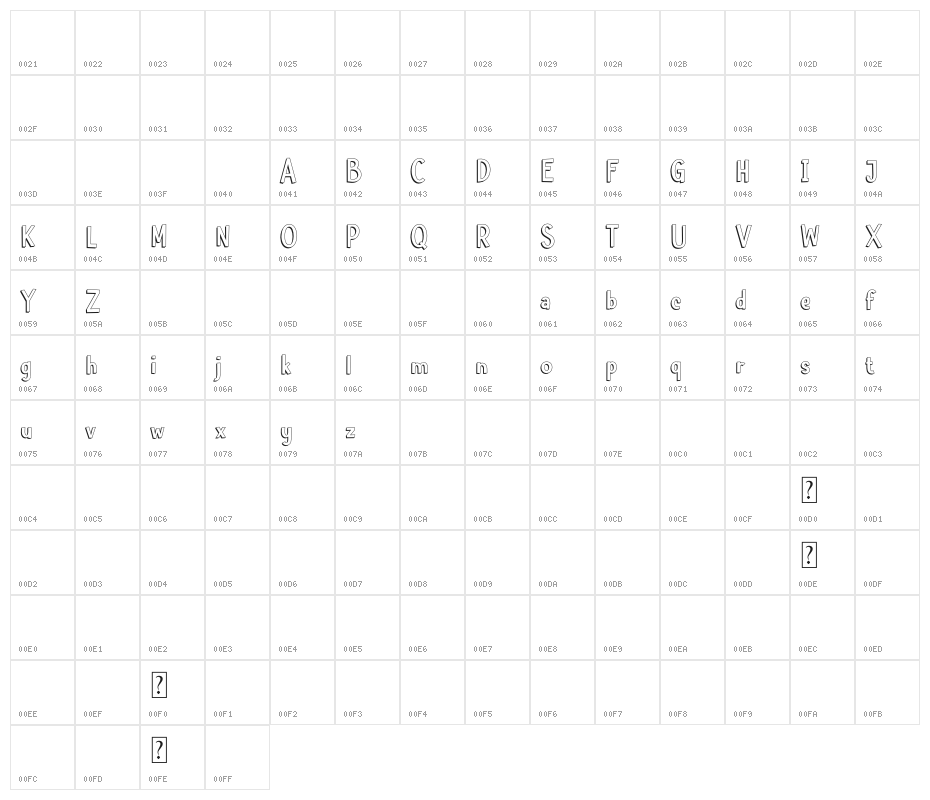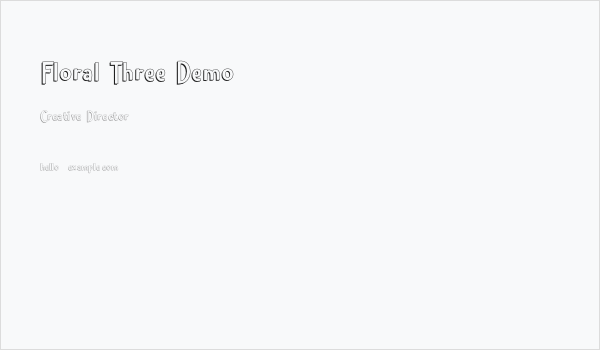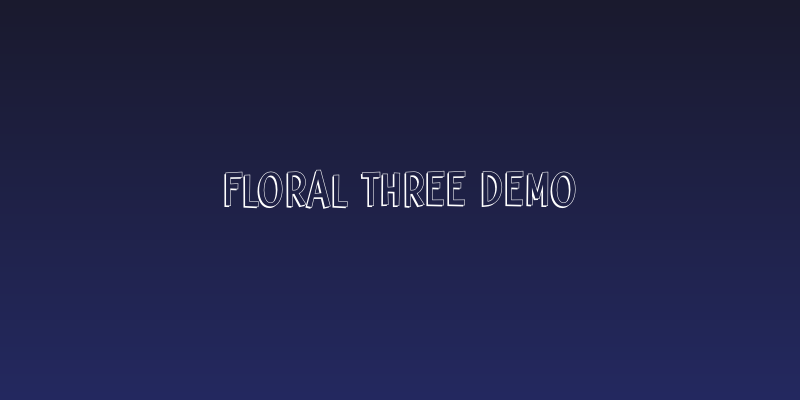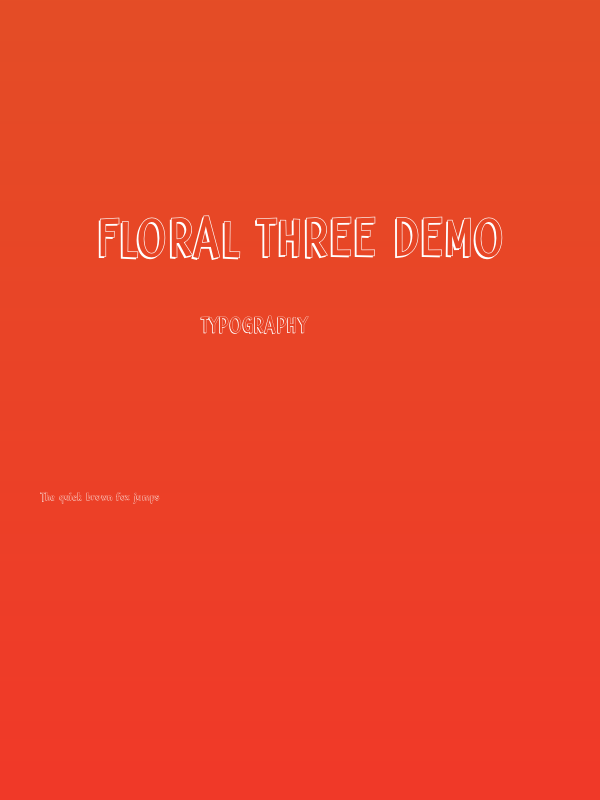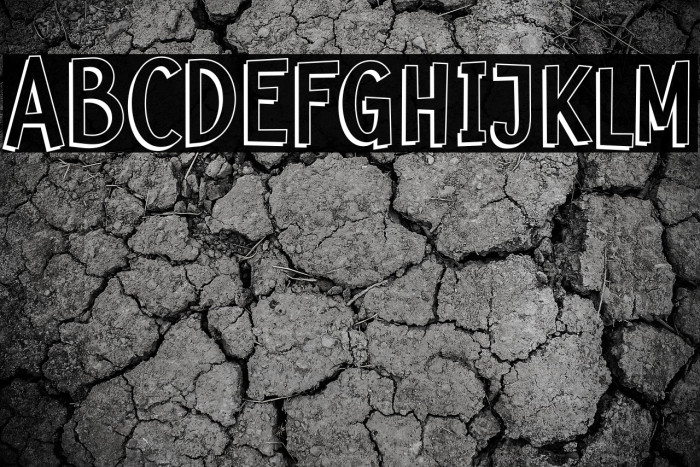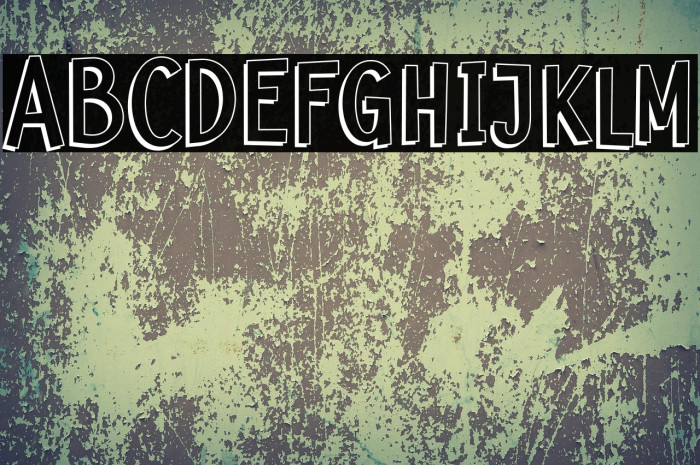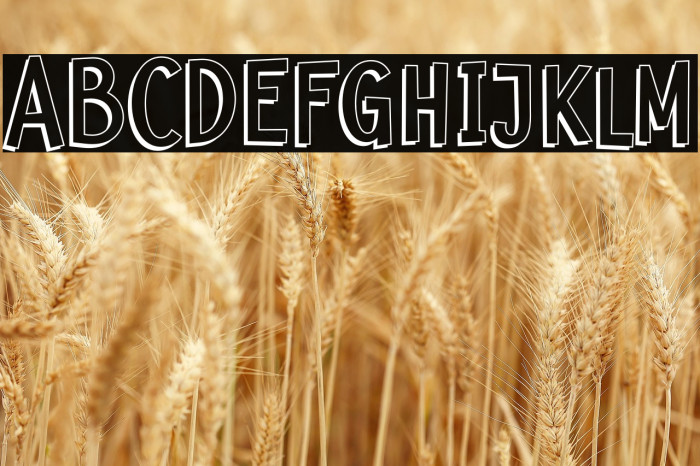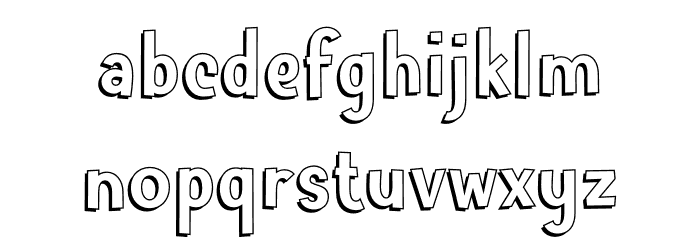
Floral Three Demo Font
Floral Three Demo Description
This font features a playful and decorative style with a three-dimensional effect. The letters are outlined with a shadow that gives them depth, making them stand out prominently. The uppercase and lowercase characters maintain a consistent design, with clean lines and a slightly bold appearance. The numerals and special characters are designed to match the overall aesthetic, ensuring uniformity across all glyphs. This font is ideal for projects that require a fun and engaging look, such as children's books, posters, and creative branding materials. Its unique style captures attention while remaining legible.
| Proposed Projects | Ideal for children's books, posters, creative branding, and playful designs. |